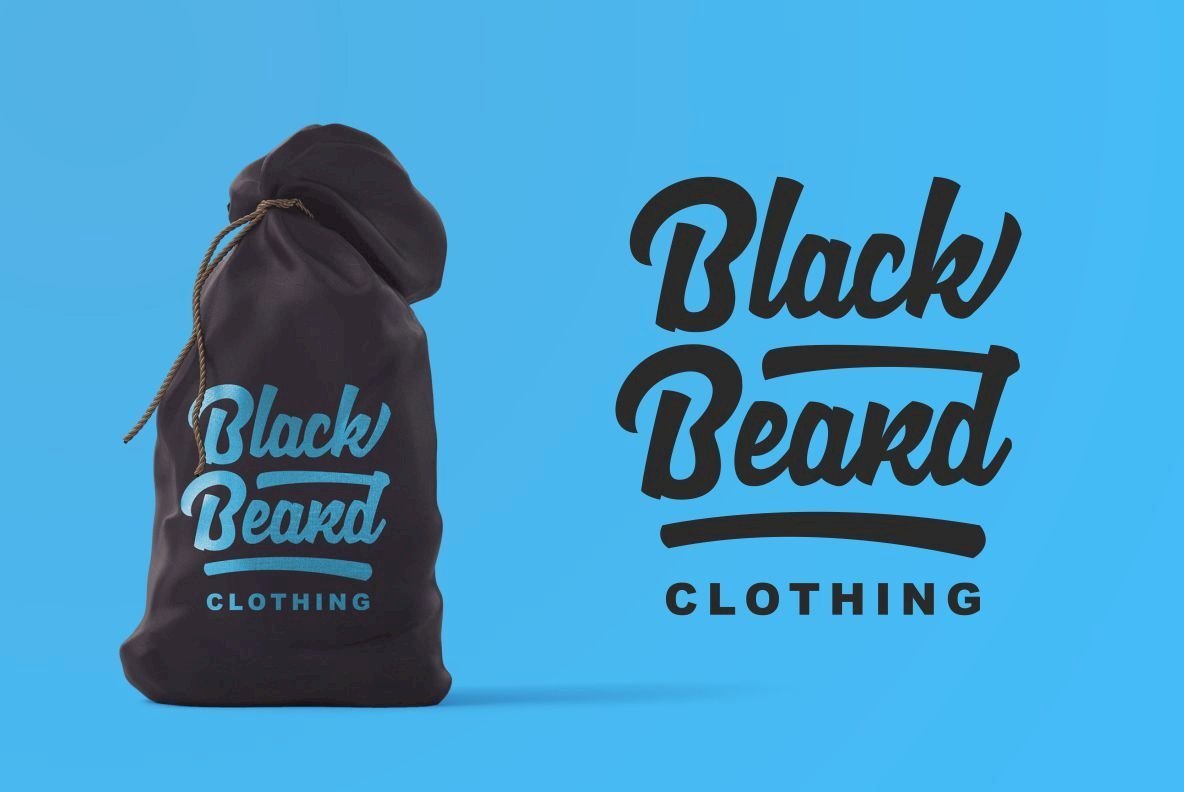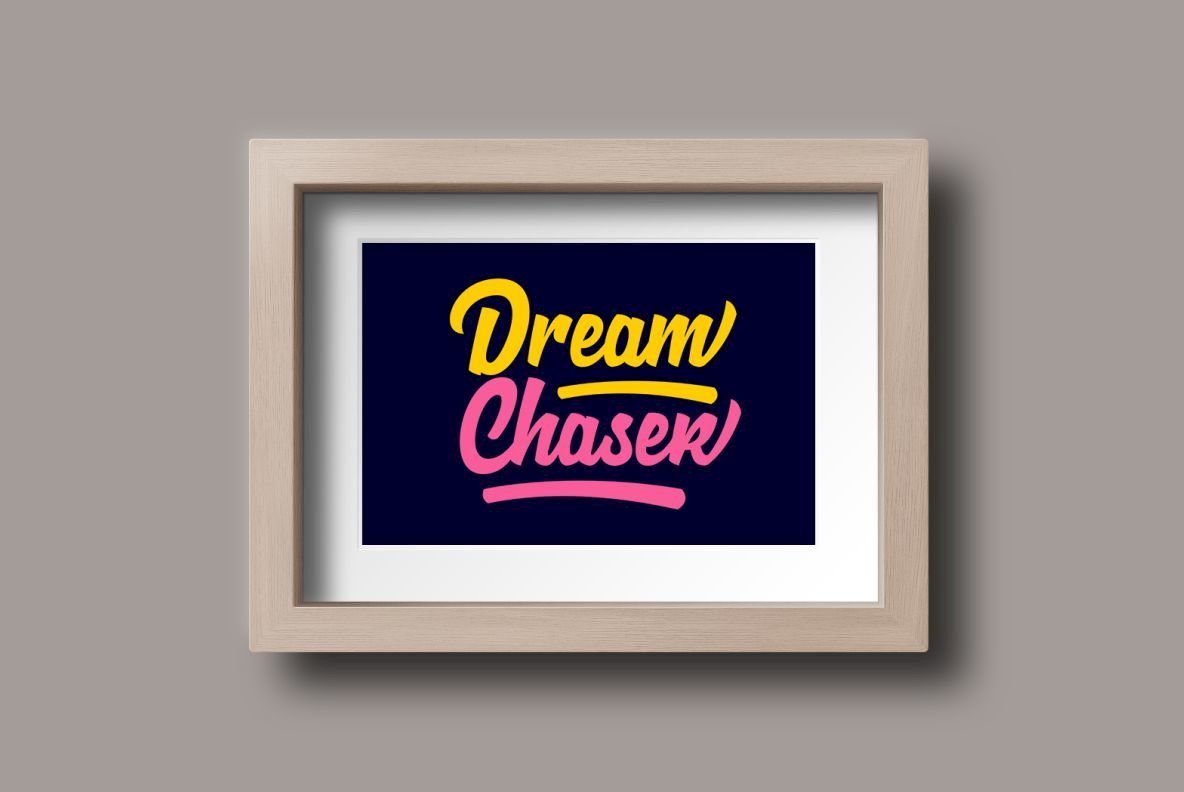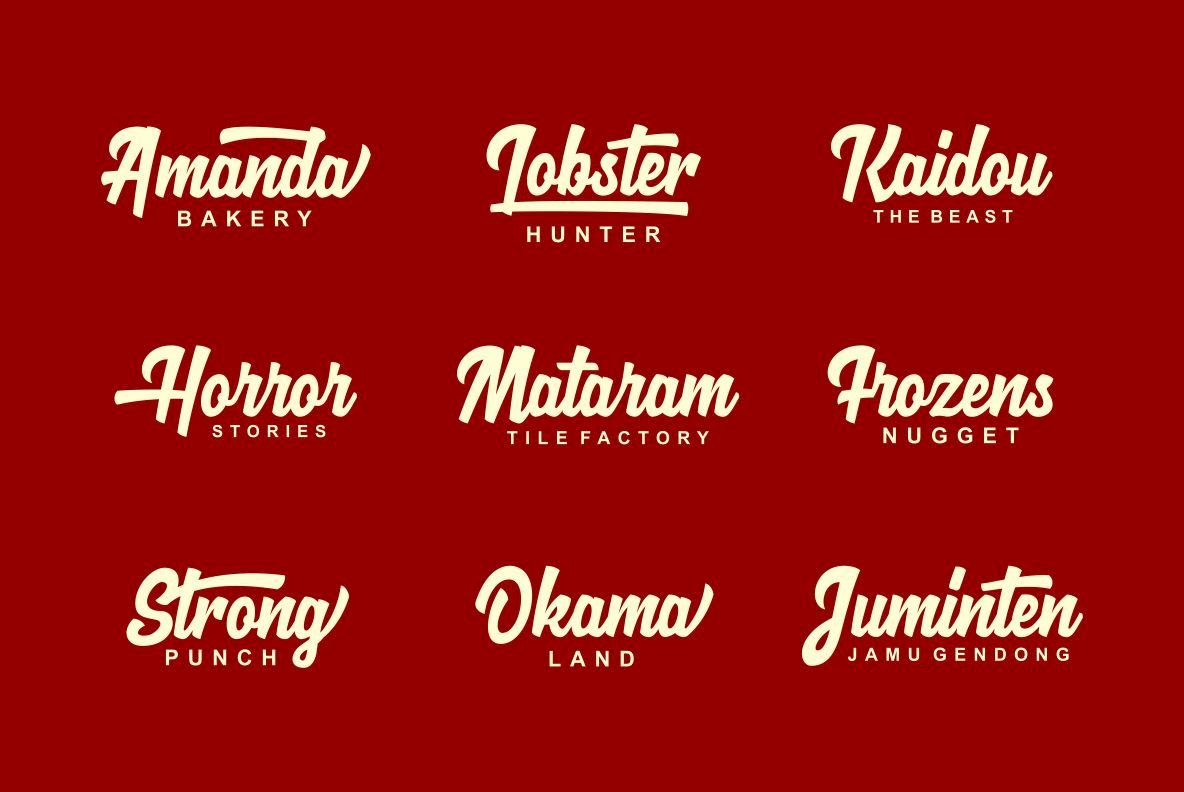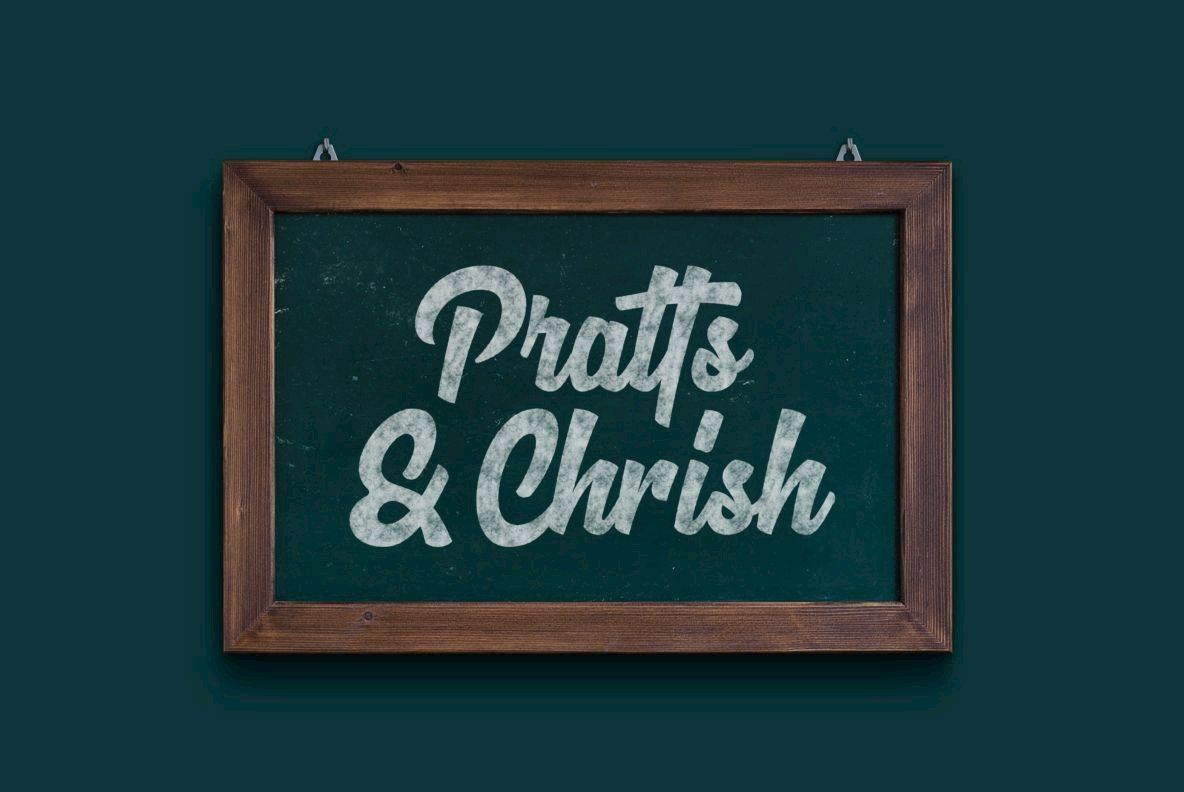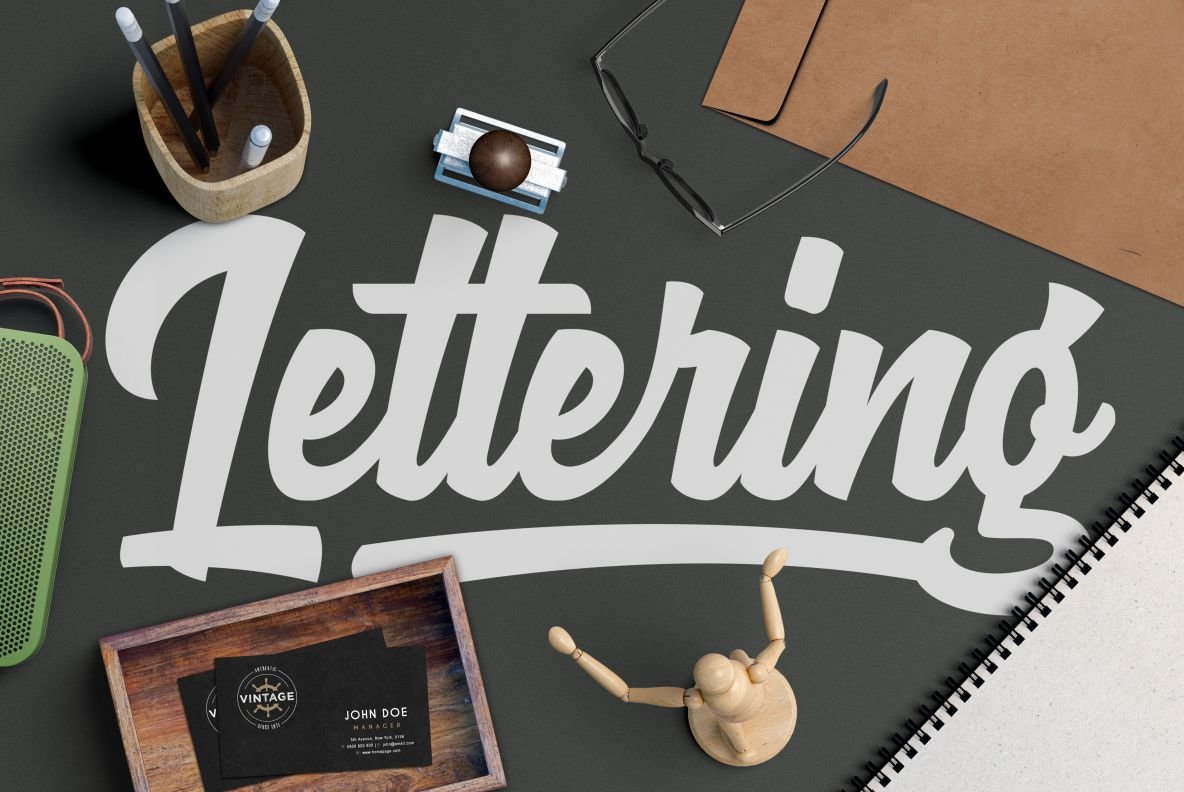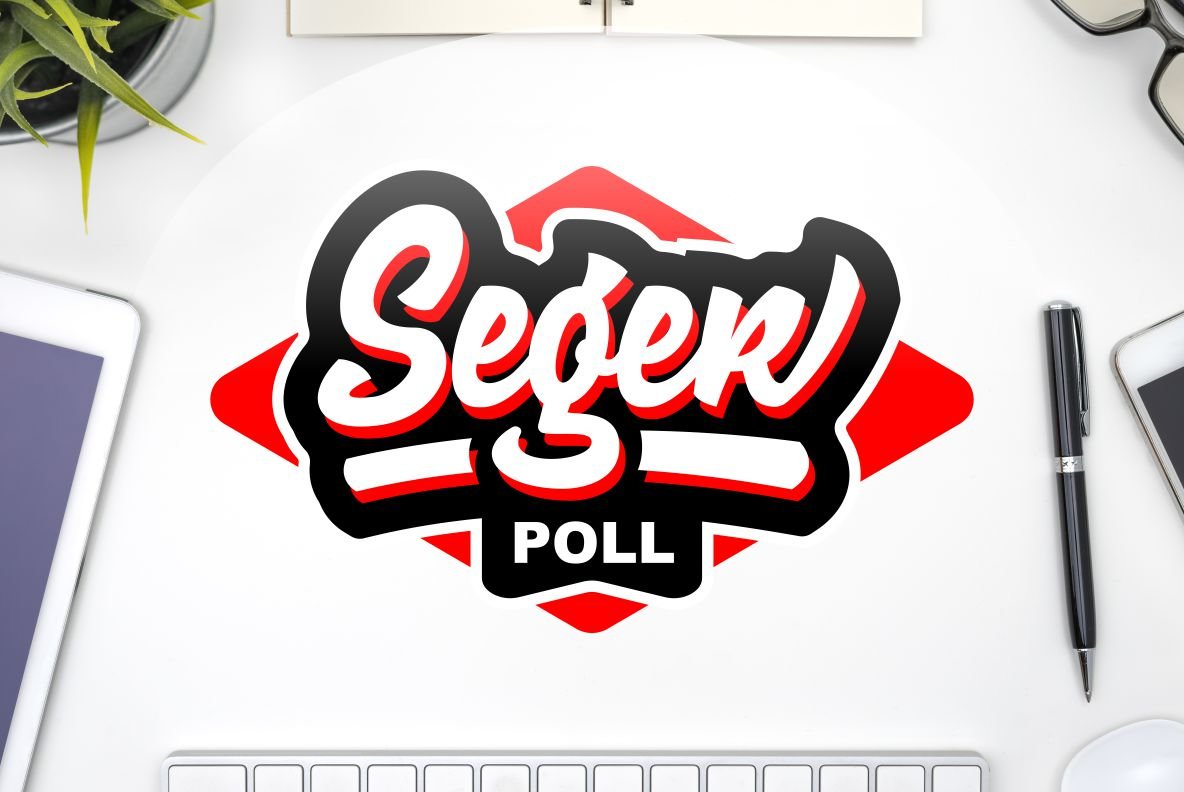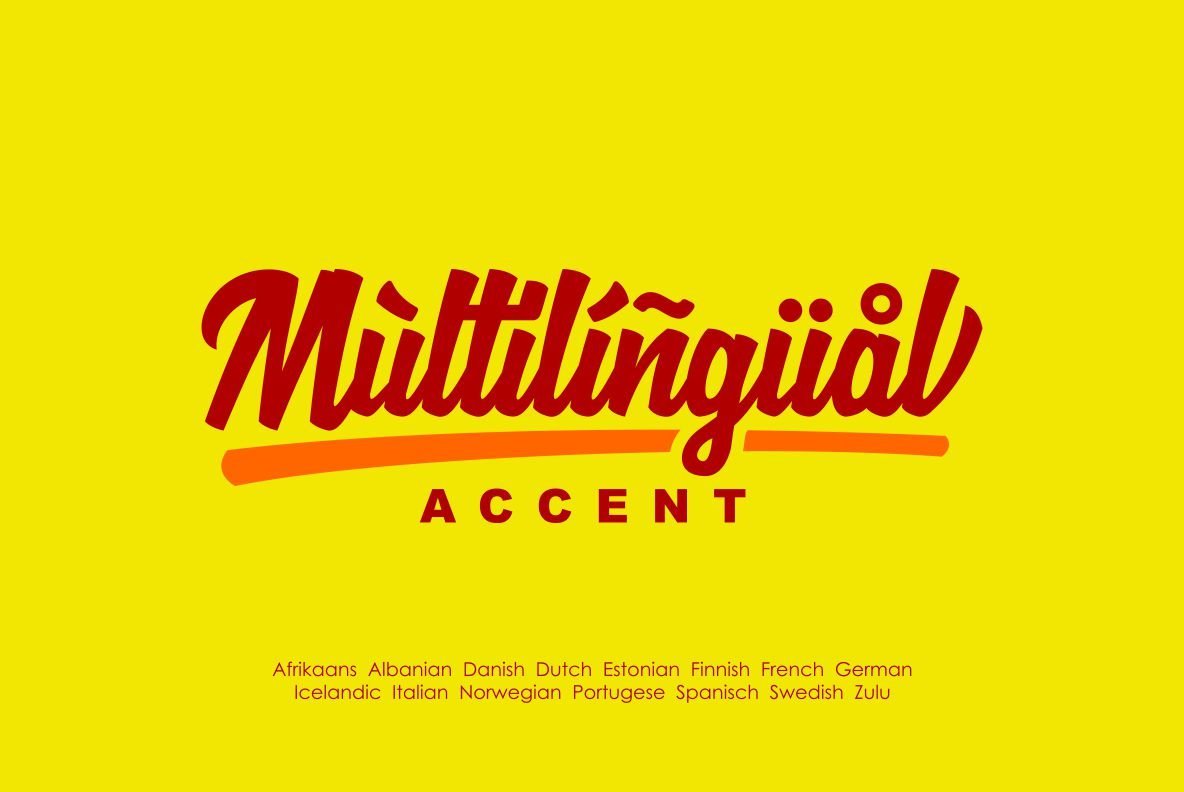
Loguetown Font
Loguetown
In the dynamic world of type design, Loguetown emerges as a bold script that balances modern flair with classic undertones, perfect for bringing a personalized edge to your projects. This typeface radiates with a lively persona, making it an exceptional choice for projects ranging from branding to editorial design, where a statement piece is necessary. Loguetown invites designers to explore its creative potential, delivering unique typographic solutions for any design challenge.Loguetown: Bold Script with Distinct Personality